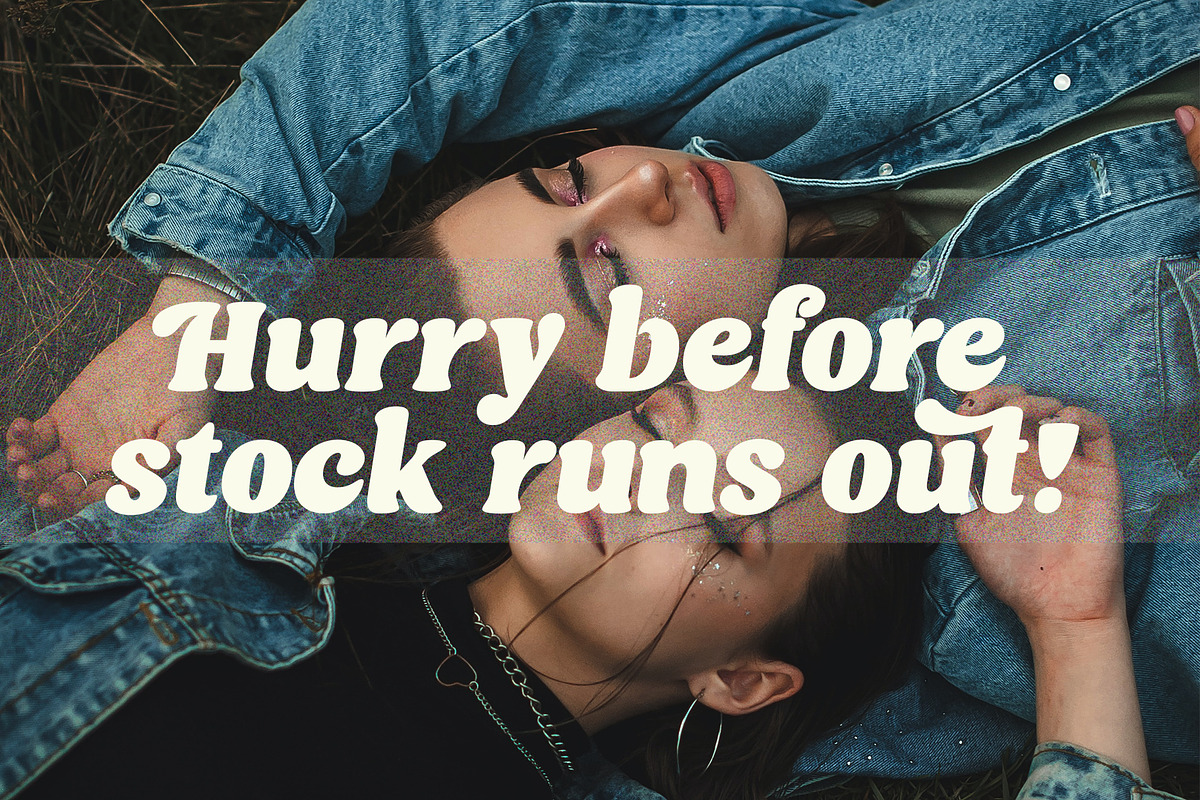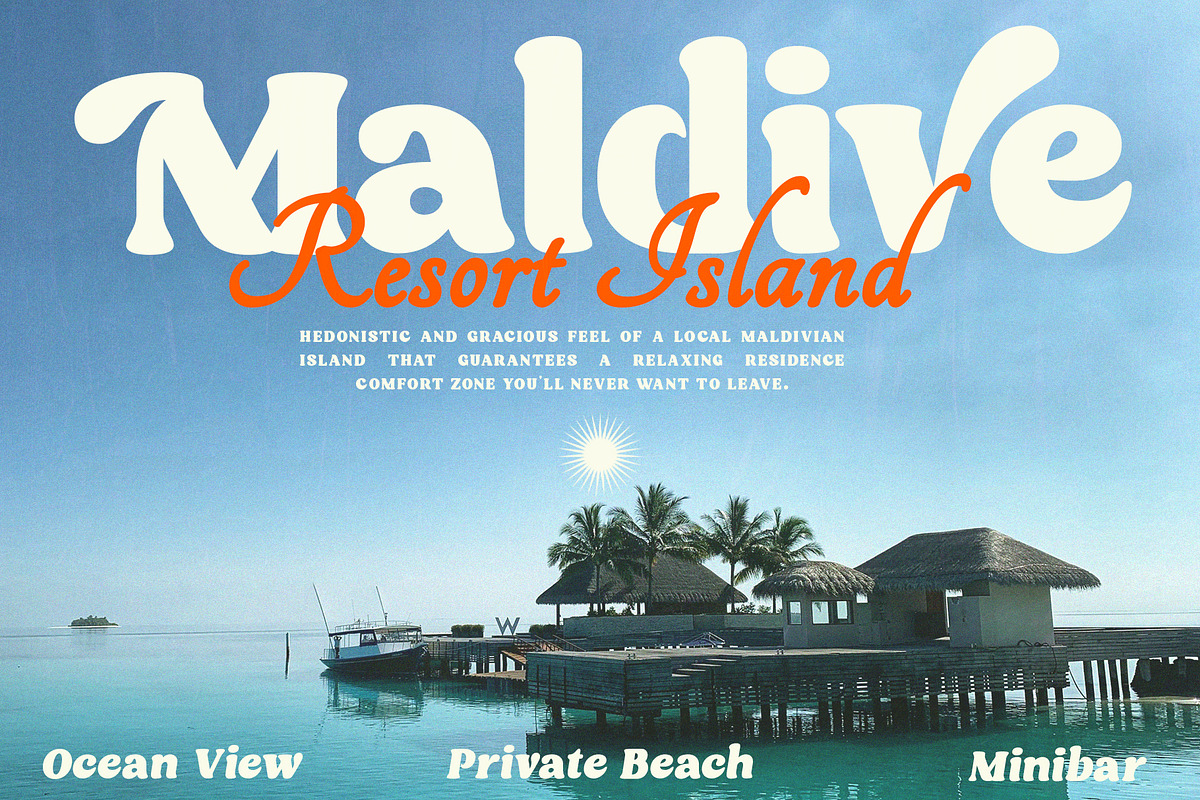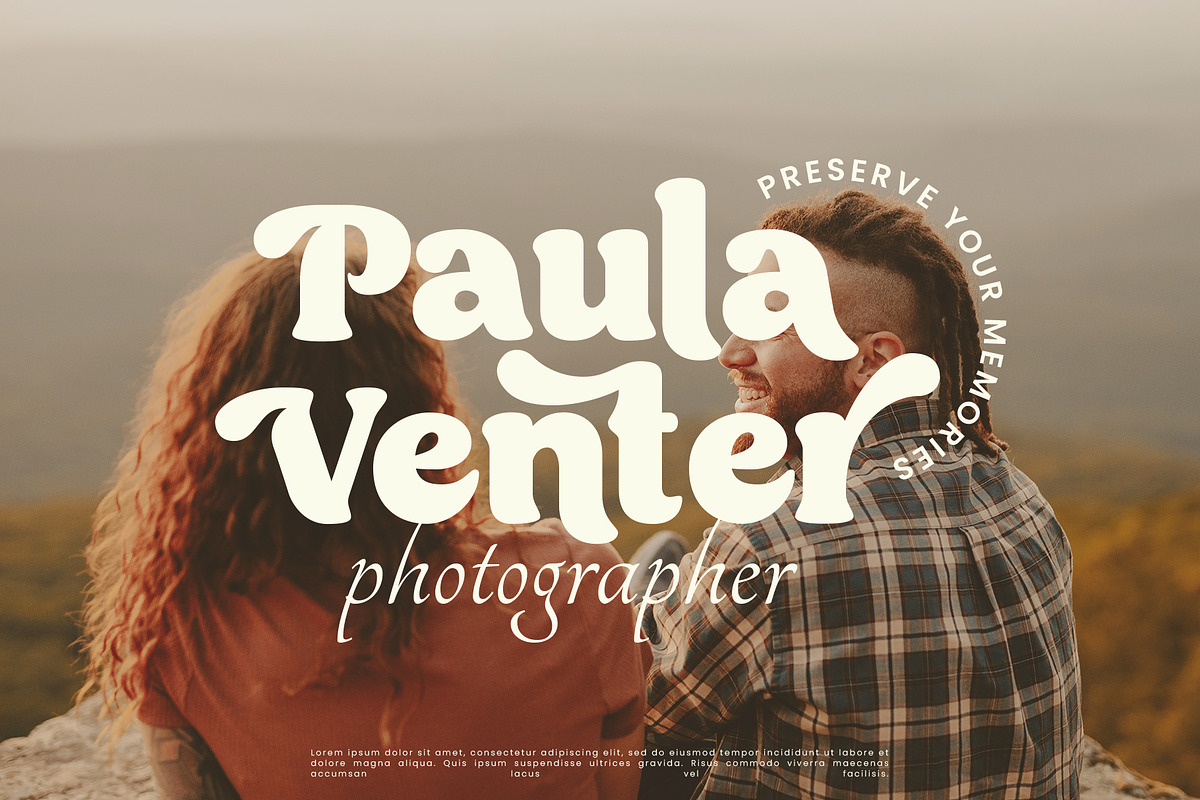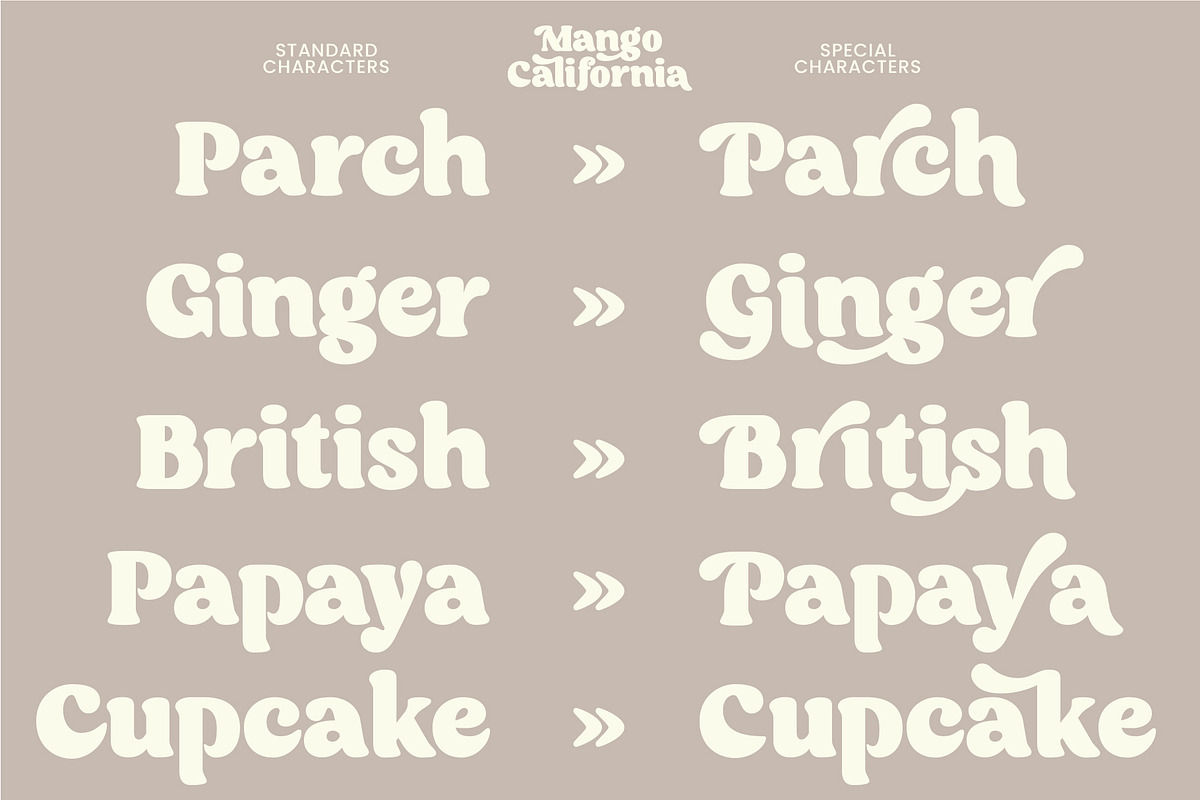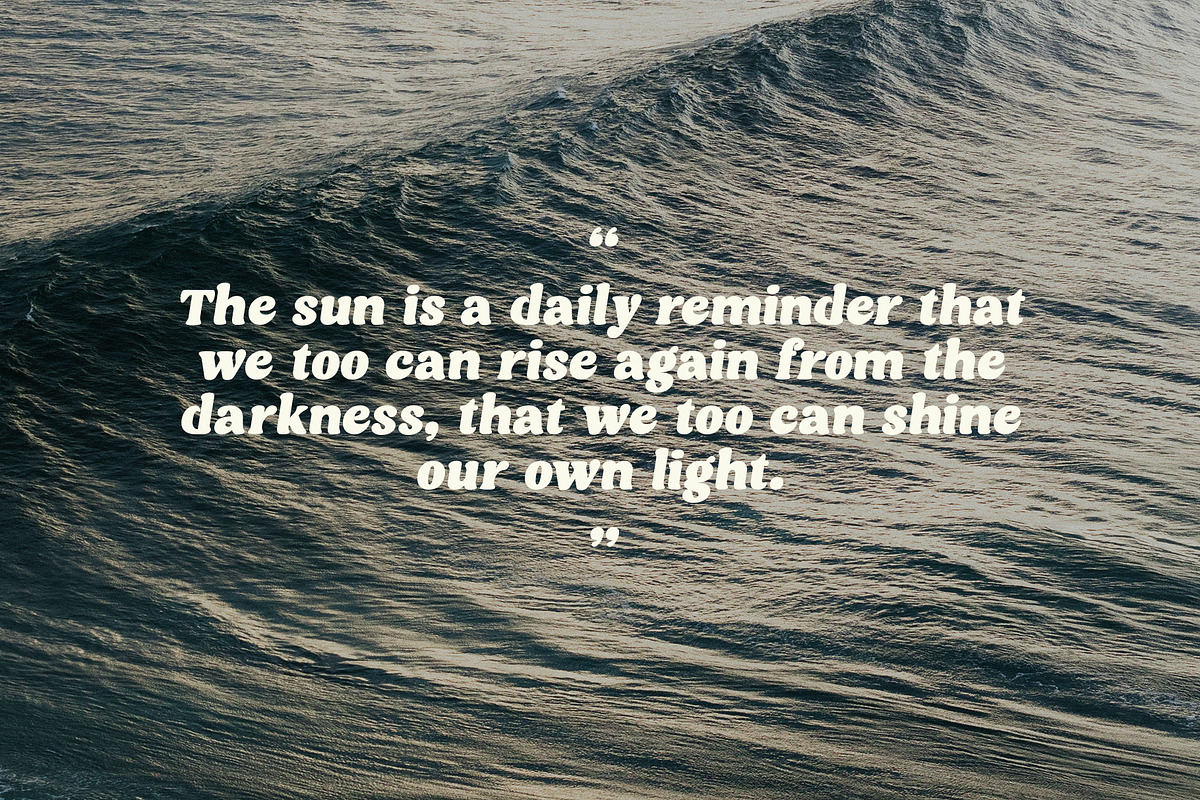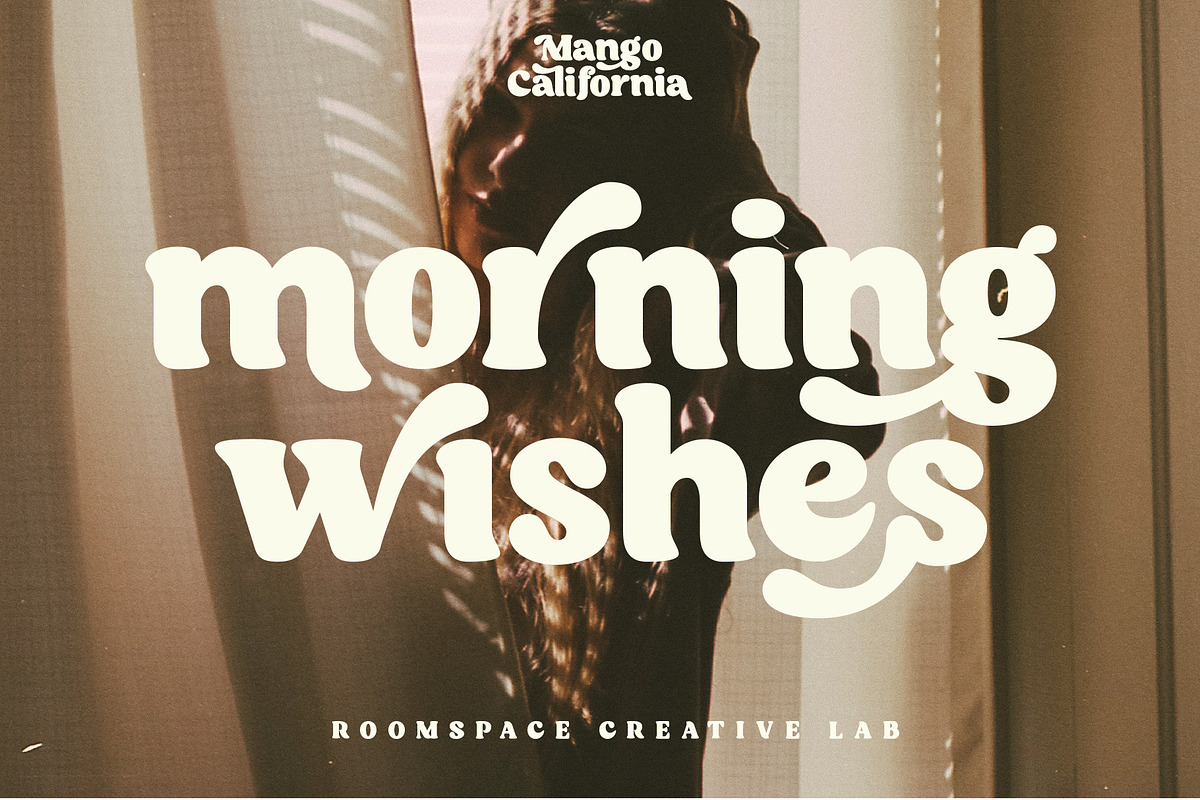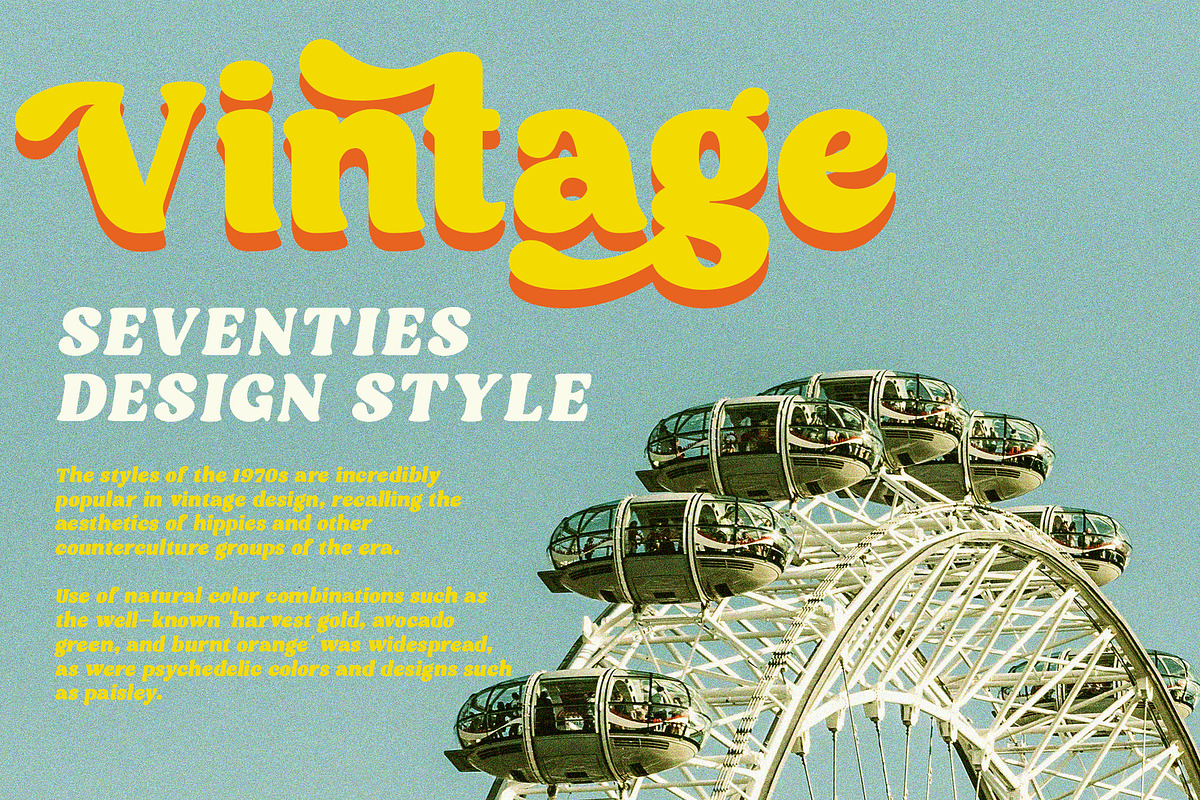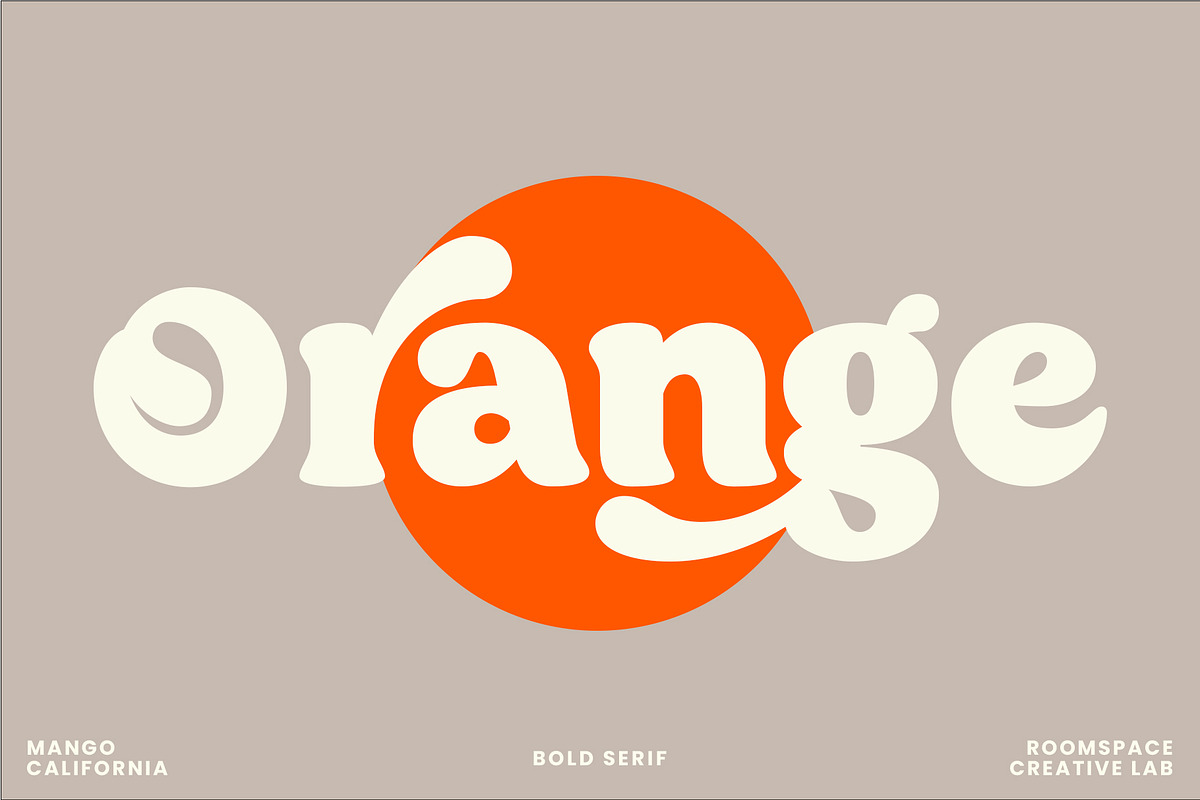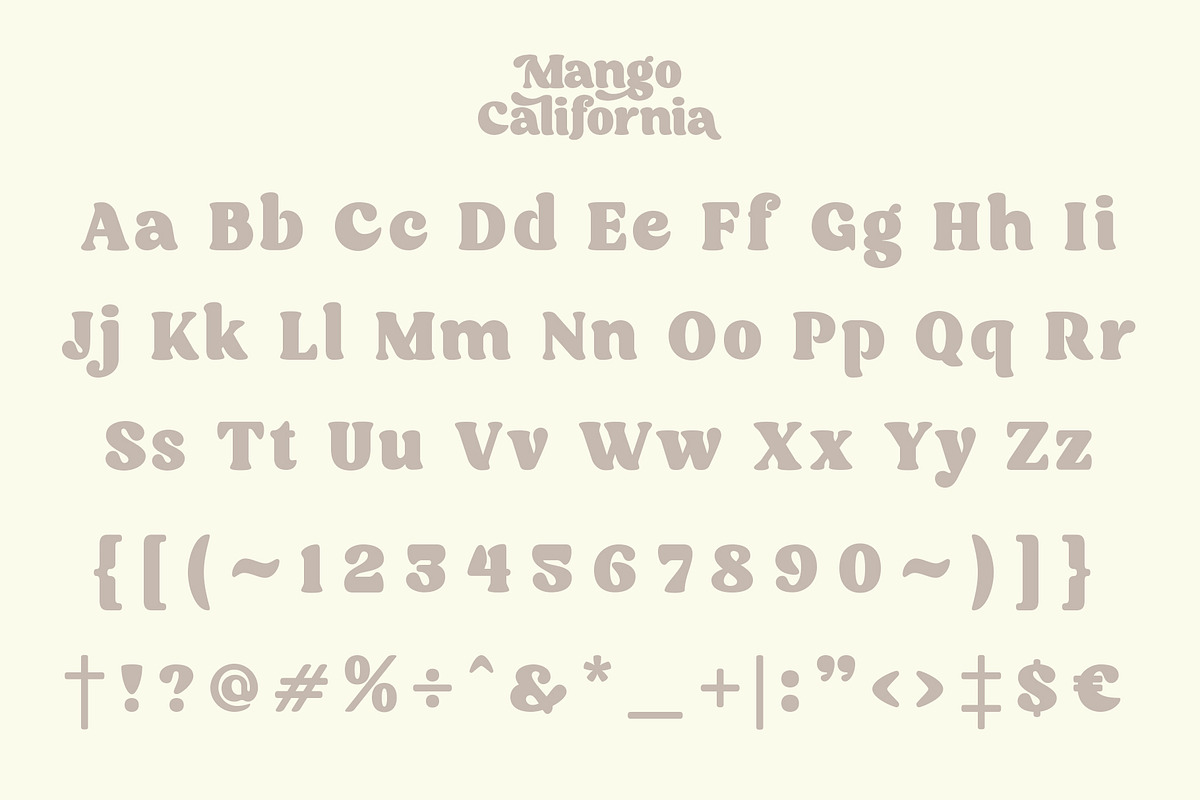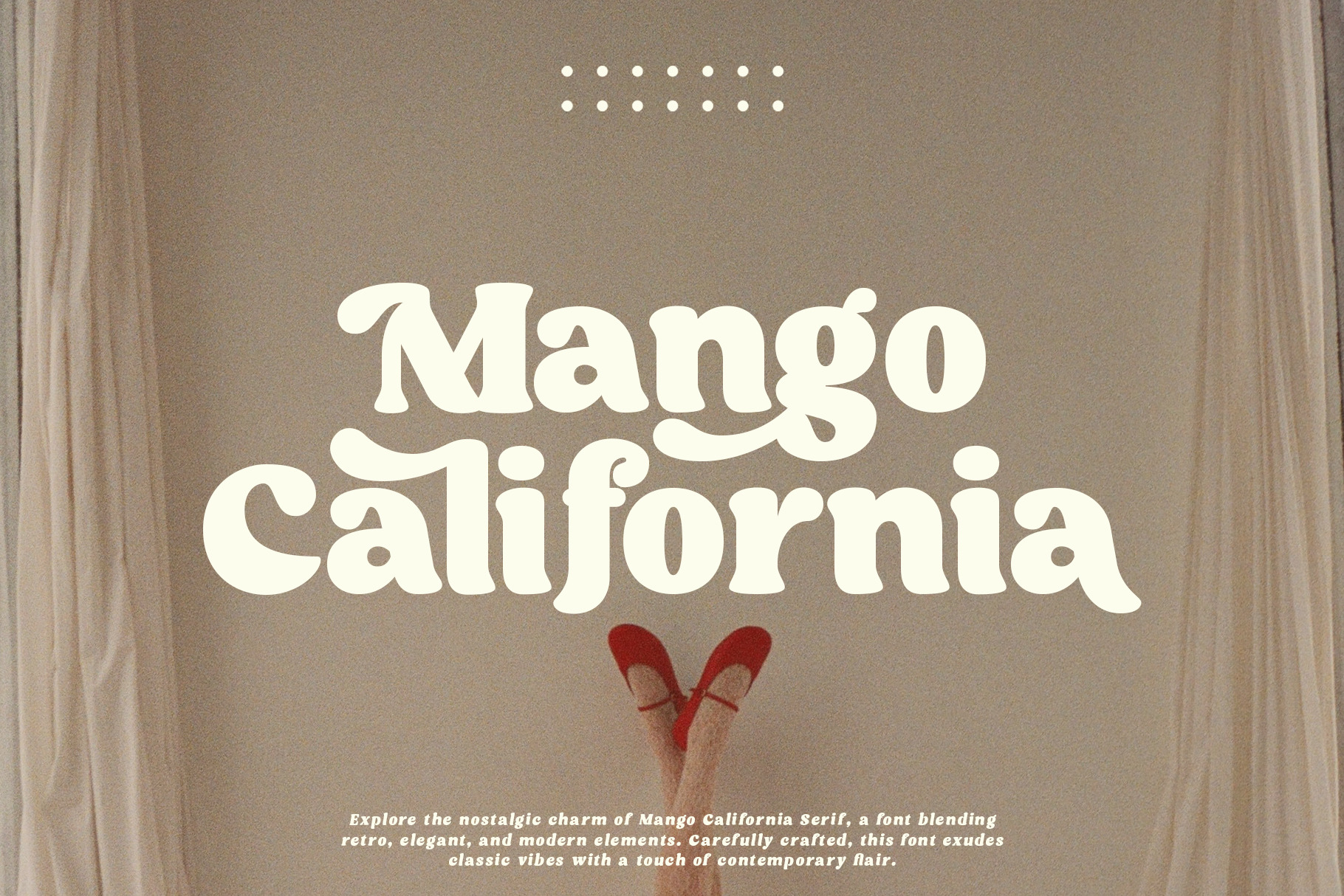
Mango California Serif Font
Explore the nostalgic charm of Mango California Serif, a font blending retro, elegant, and modern elements. Carefully crafted, this font exudes classic vibes with a touch of contemporary flair. suitable for various DIY projects, including Cricut designs. Easily create custom projects and stand out from the crowd.
With a modern twist and boho influence, this font is perfect for projects seeking a blend of current style and free-spirited nuances, it takes you on a journey back in time, infusing your designs with a captivating retro charm that remains elegantly timeless.
- Regular & Italic